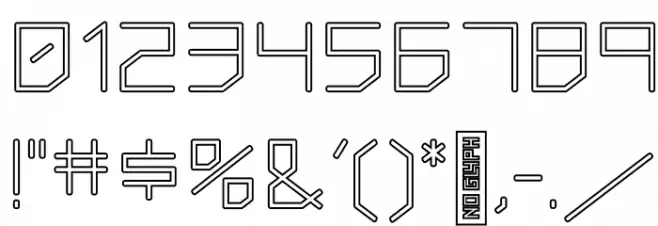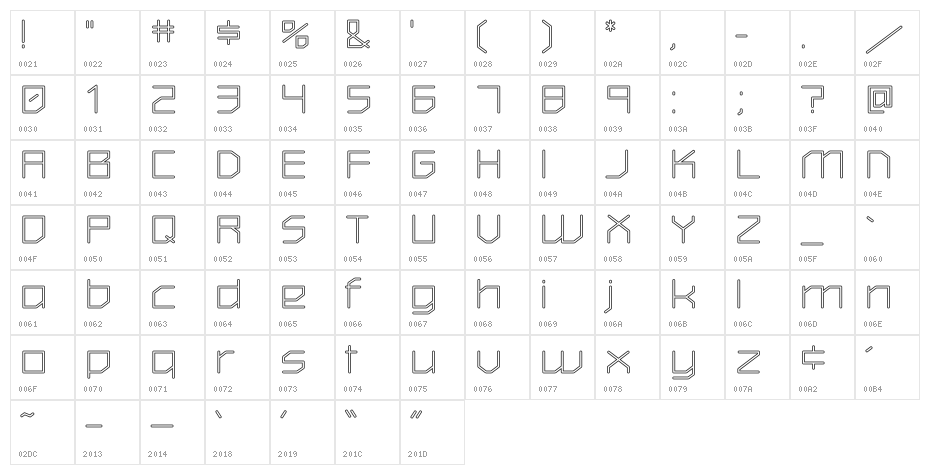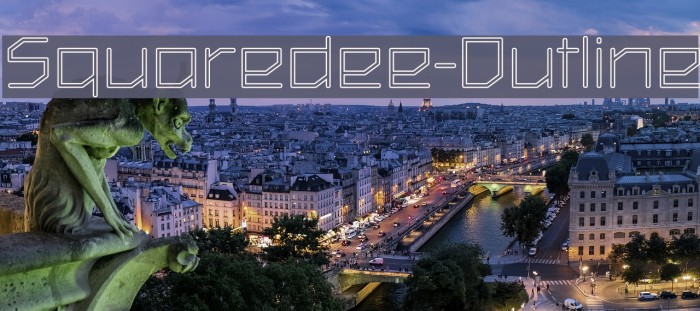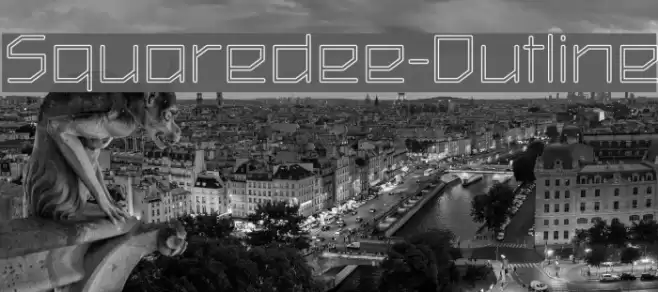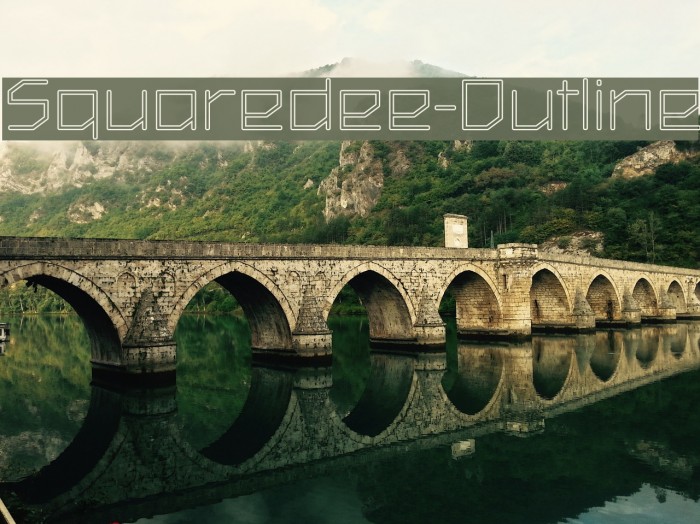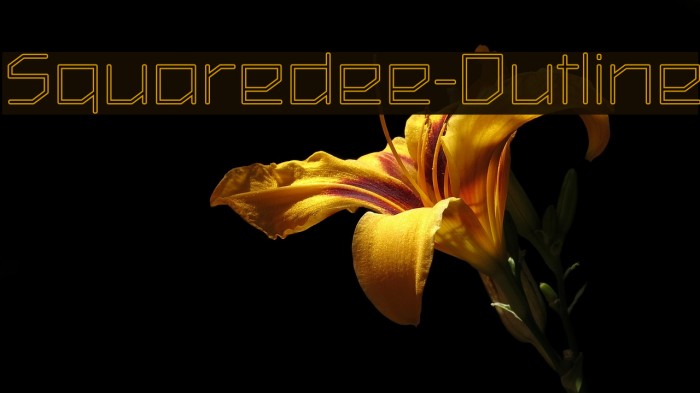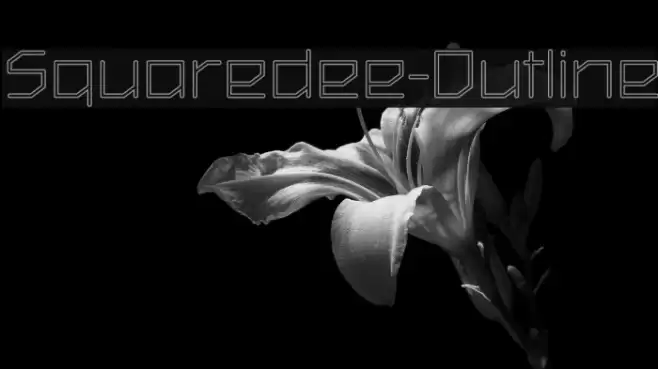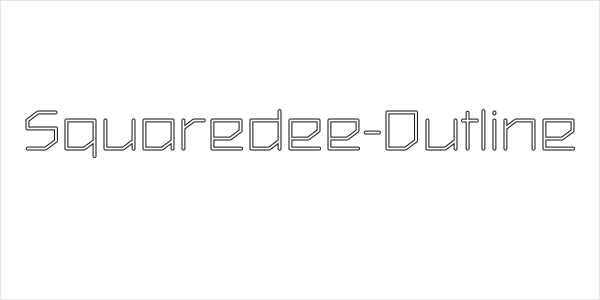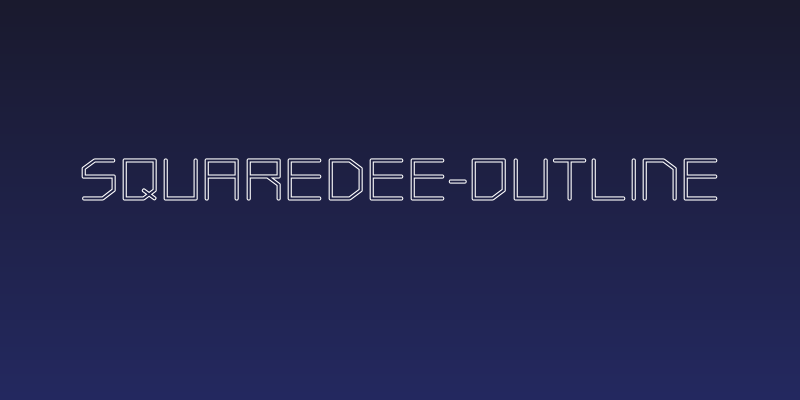
Squaredee-Outline Font
Squaredee-Outline Description
This font features a geometric, outline style with a modern and futuristic aesthetic. Each character is constructed with precise, angular lines that form a hollow, box-like appearance. The uppercase and lowercase letters maintain a consistent height, contributing to a uniform look. The numerals and special characters follow the same design principles, ensuring cohesion across all glyphs. The font's clean and minimalistic approach makes it suitable for digital and print media where a contemporary and tech-inspired look is desired.